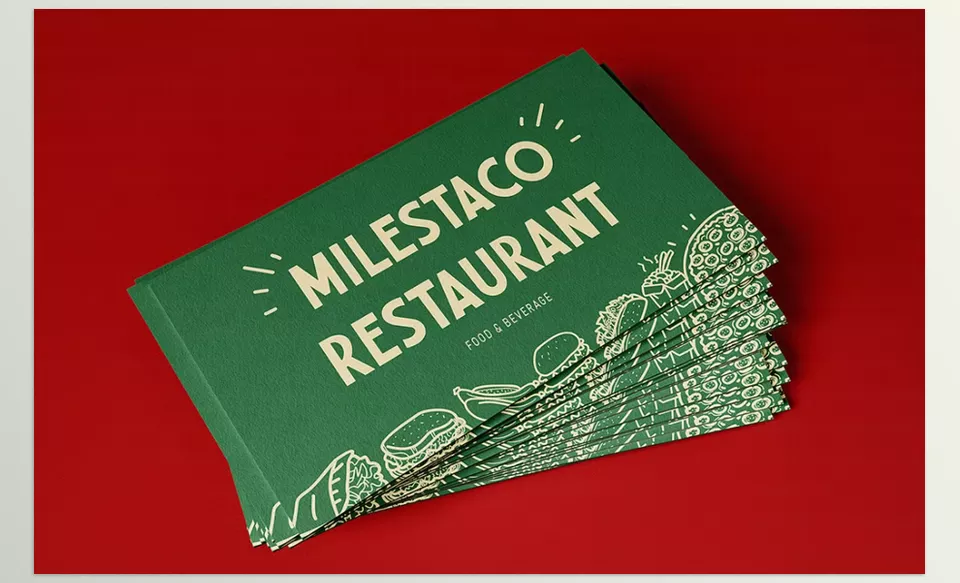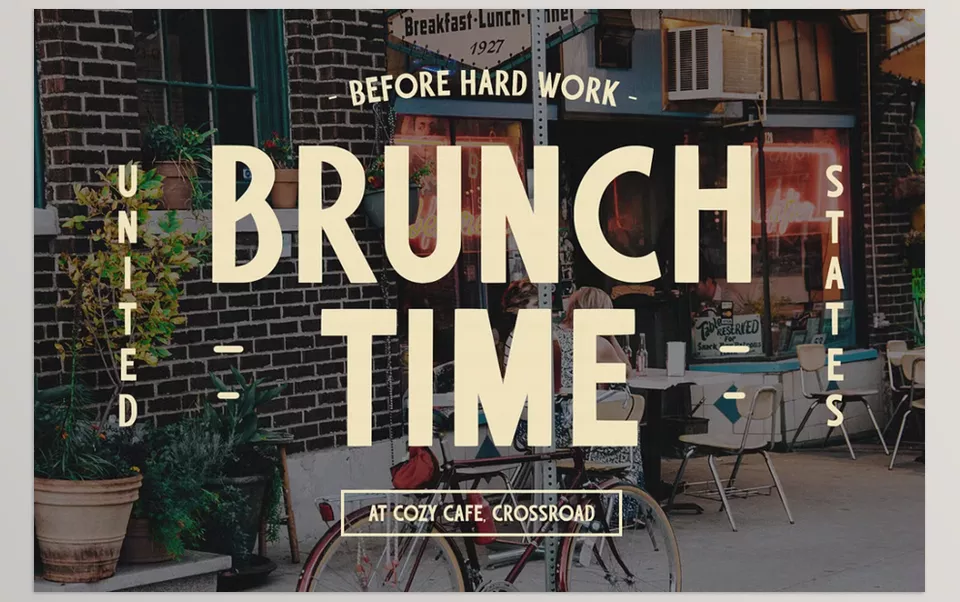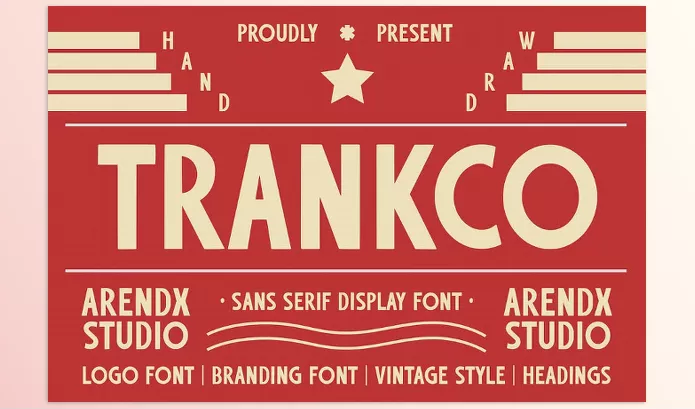
Trankco Display Font is a hand-drawn sans serif font which brings to life the 1960s advertisement typography; from the bold typeface to the letters used, it’s as though the letters were carved using a chisel. The font itself has a nostalgic feeling accompanied by its geometric shapes.
Arendxstudio – Trankco Display Font Features
• Gritty Embrace of Brush: The strokes feel as if they were done using a marker or a brush, drawing on a level of rugged trait.
• Retro Scabs: Traces of ink from years gone past splattered, edges raw from wear provide a vintage touch.
• Primordial Figures Are The Uppercase Focused Letters: Stubborn Against the uppercase letters, block-like numerals and gritty deeper symbols are harshly scattered.
• Many Shaded Languages Supported: Making Trankco useful for many audiences as it holds multiple languages.
Preview Trankco Display Font
Image 1: Bold and Retro: This font embodies the rugged charm of 1960s signage.
Trankco Display Font - Bold and Retro: This font embodies the rugged charm of 1960s signage.
Image 2: This style fits best on a project with a nauseating twist.
Trankco Display Font - This style fits best on a project with a nauseating twist.